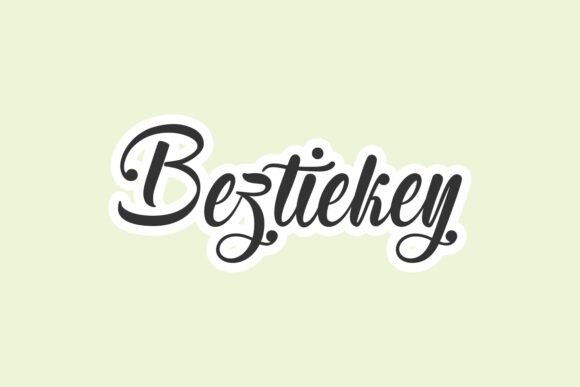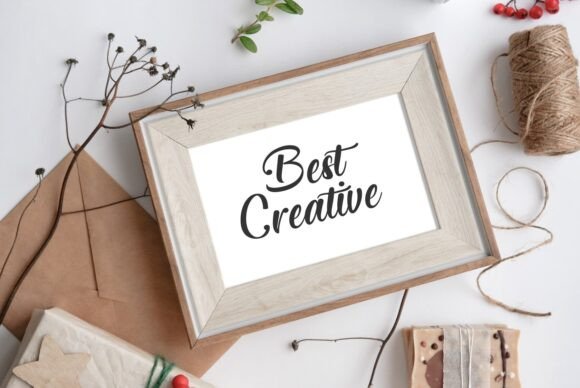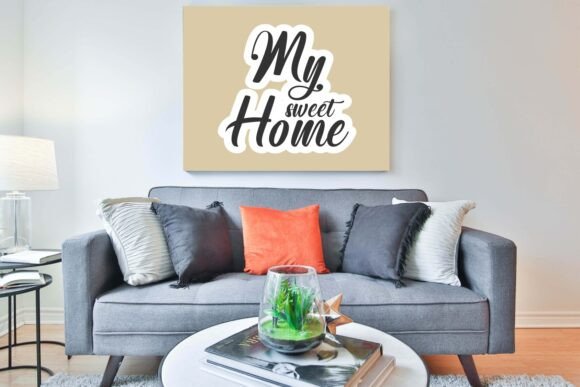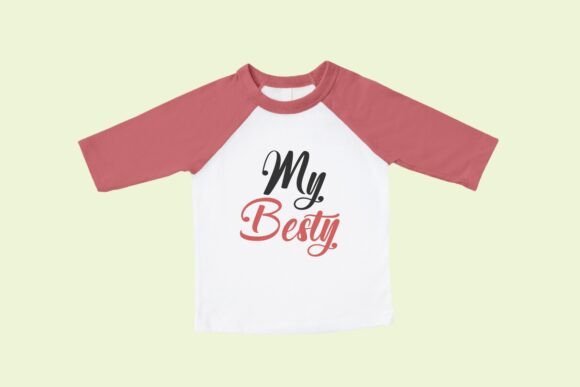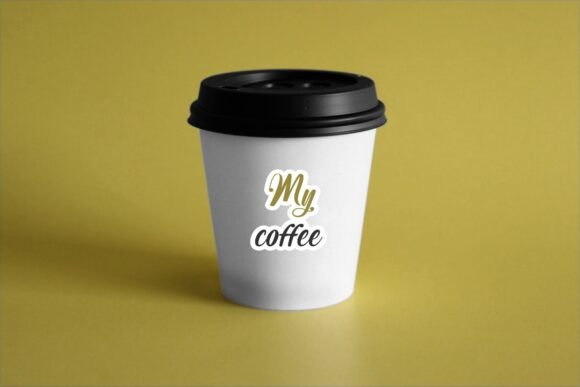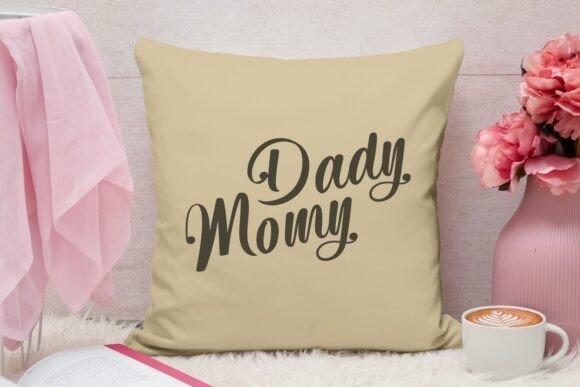
Introducing Beztiekey Font: Elevate Your Designs with a Unique Script
Are you tired of using the same old fonts in your designs? Do you want to add a touch of elegance and sophistication to your creations? Look no further than Beztiekey Font, an amazing and unique script that will turn any design idea into a true standout. In this article, we’ll explore the features and benefits of Beztiekey Font, and show you how to incorporate it into your designs to take them to the next level.
The Power of Typography: Why Fonts Matter in Design
Typography is a crucial element of design, as it can make or break the visual appeal of a project. A well-chosen font can elevate your design, convey your message, and even evoke emotions. On the other hand, a poorly chosen font can detract from your design, making it look amateurish and unprofessional. That’s why it’s essential to choose a font that aligns with your design goals and style.
What Makes Beztiekey Font So Special?
Beztiekey Font is a unique script font that stands out from the crowd. Its elegant and flowing lines make it perfect for designs that require a touch of sophistication and glamour. Whether you’re working on a branding project, a wedding invitation, or a social media graphic, Beztiekey Font is sure to impress. Its versatility and flexibility make it suitable for a wide range of design applications, from digital to print.
Key Features of Beztiekey Font
- Unique and elegant script: Beztiekey Font features a distinctive and stylish script that will add a touch of elegance to your designs.
- High-quality and readable: The font is designed to be highly legible, making it perfect for body text and headlines.
- Versatile and flexible: Beztiekey Font can be used for a wide range of design applications, from digital to print.
How to Use Beztiekey Font in Your Designs
Using Beztiekey Font in your designs is easy. Here are a few tips to get you started:
- Pair it with a bold font: Combine Beztiekey Font with a bold font to create a striking contrast and add visual interest to your design.
- Use it for headlines and titles: Beztiekey Font is perfect for headlines and titles, where its elegant and flowing lines can shine.
- Experiment with different colors: Try Beztiekey Font with different colors to add a pop of color and create a unique visual effect.
Benefits of Using Beztiekey Font
By incorporating Beztiekey Font into your designs, you’ll enjoy a range of benefits, including:
- Unique and distinctive designs: Beztiekey Font will help you create designs that stand out from the crowd and leave a lasting impression.
- Increased legibility: The font’s high-quality and readable design ensures that your text is easy to read and understand.
- Enhanced creativity: Beztiekey Font’s versatility and flexibility will inspire you to experiment and try new design ideas.
In conclusion, Beztiekey Font is an amazing and unique script that will turn any design idea into a true standout. With its elegant and flowing lines, high-quality and readable design, and versatility and flexibility, it’s the perfect addition to your design toolkit. So why wait? Add Beztiekey Font to your creations and take your designs to the next level!